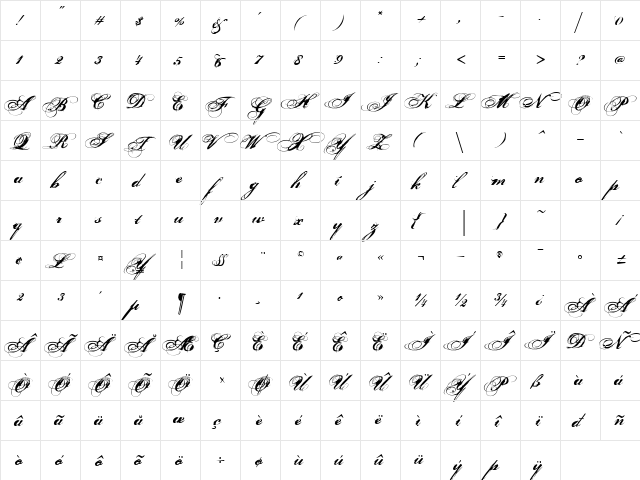
Nars 3 Regular
Design Context for Nars 3 Typeface
Nars 3 is a composed and adaptable typeface that performs quietly and consistently across a wide range of design contexts.